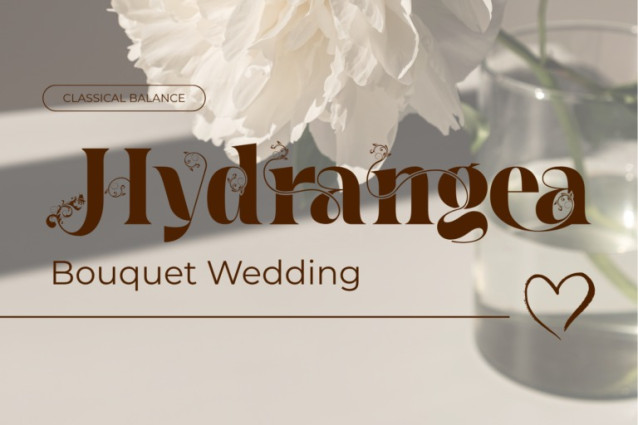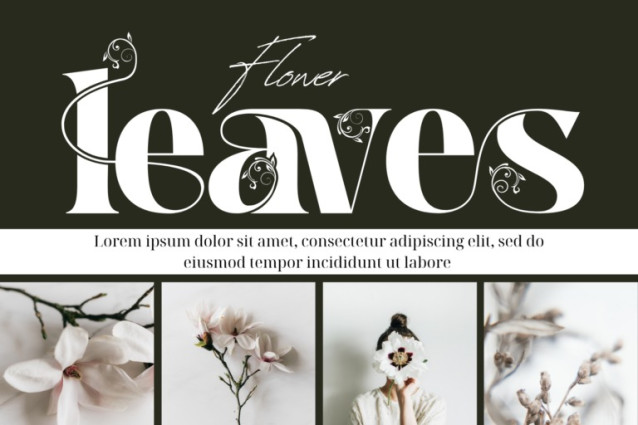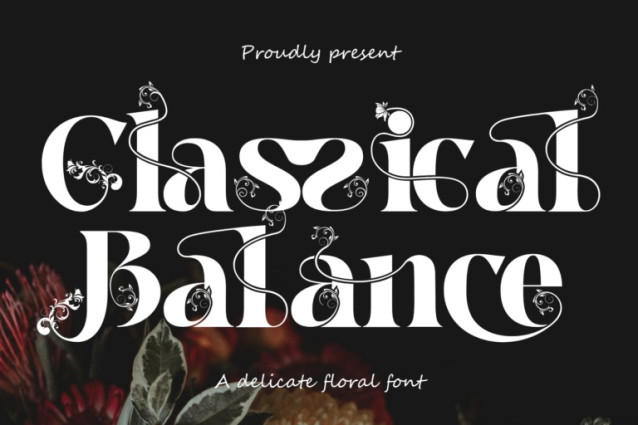
Classical Balance Font
Classical Balance – Decorative Font is a high-contrast serif display font infused with botanical elegance and neoclassical finesse. Each letterform is gracefully adorned with flourishing vines, floral ornaments, and curving tendrils, creating an exquisite blend of nature and structure.
This font strikes a poetic balance between strength and softness, ideal for branding projects, luxury packaging, wedding stationery, fashion campaigns, and artistic editorials that seek timeless charm with ornamental flair.
Font Features:
Uppercase & Lowercase Letters
~100 Decorative Ligatures
Accented Characters for multilingual support
About 100 ligatures combined with Stylistic Alternates Font: